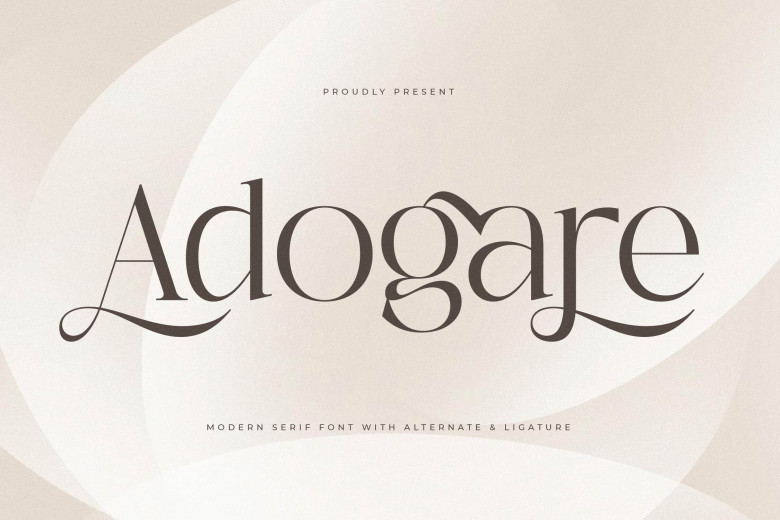
Adogare Font
Adogare Font, is an elegant yet timeless serif typeface with its own distinct style and contemporary look, perfect for sophisticated logo designs, movie or book title design, fashion brand clothing design and magazines, magazine lettering as well as quotes.
Adogare Serif Font